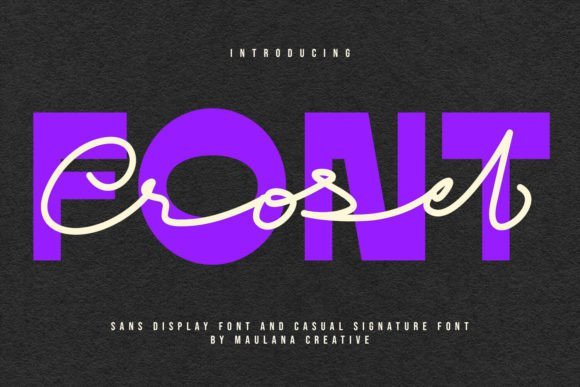
Introduction to Crosel Font
Give your designs an authentic brush-handcrafted feel.
β€œ Crosel” is perfectly suited to signature, stationery, logo, typography quotes, website header, branding, and more .
Key Features of Crosel Font